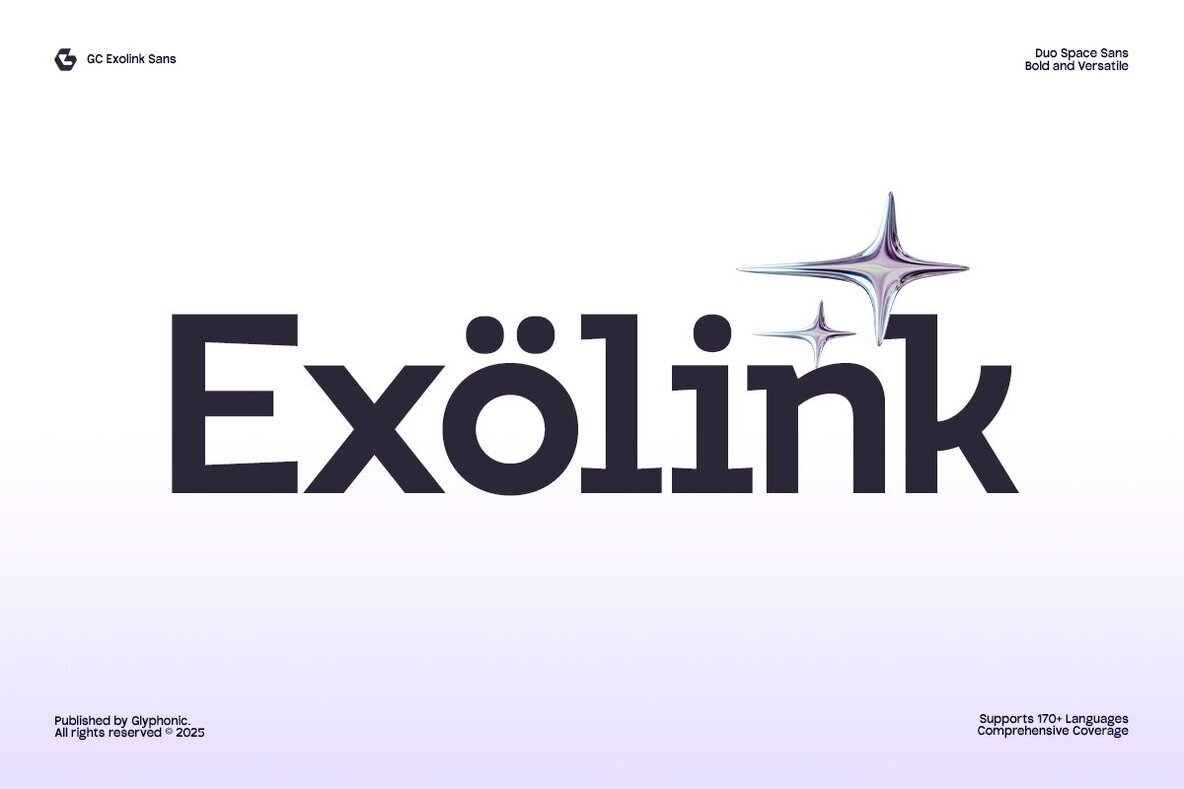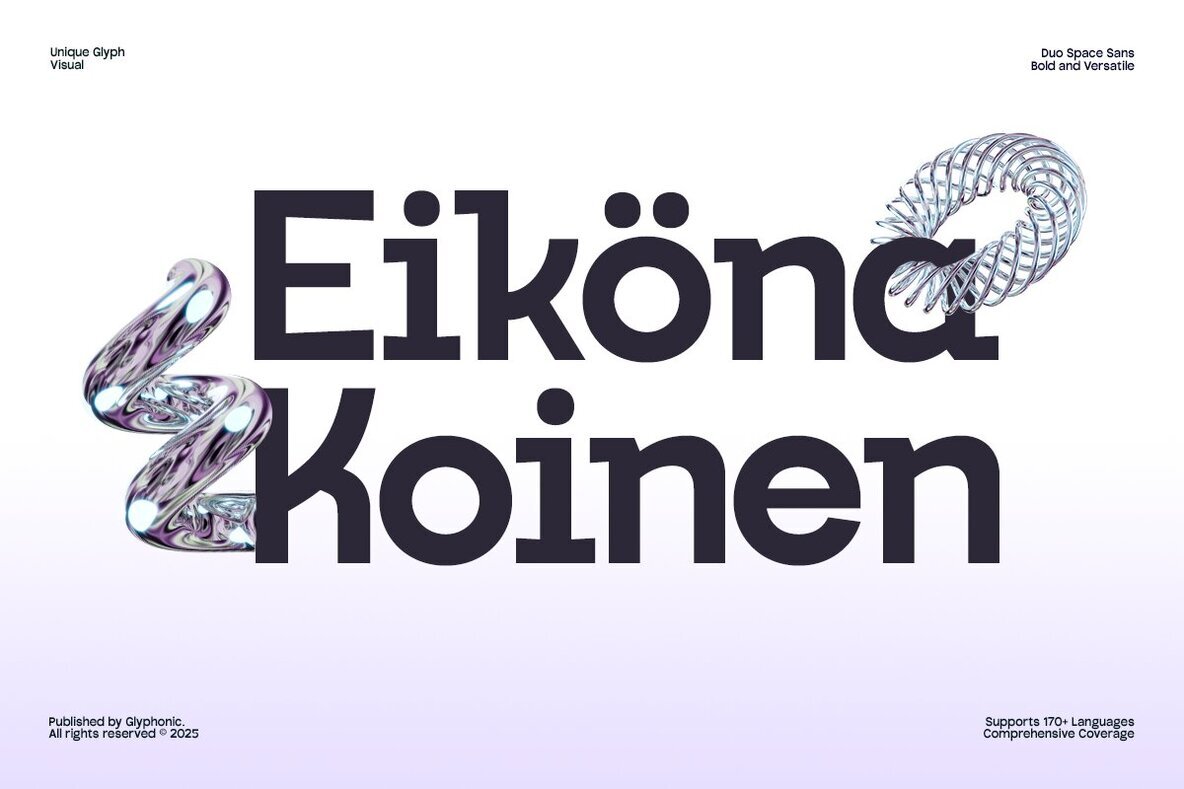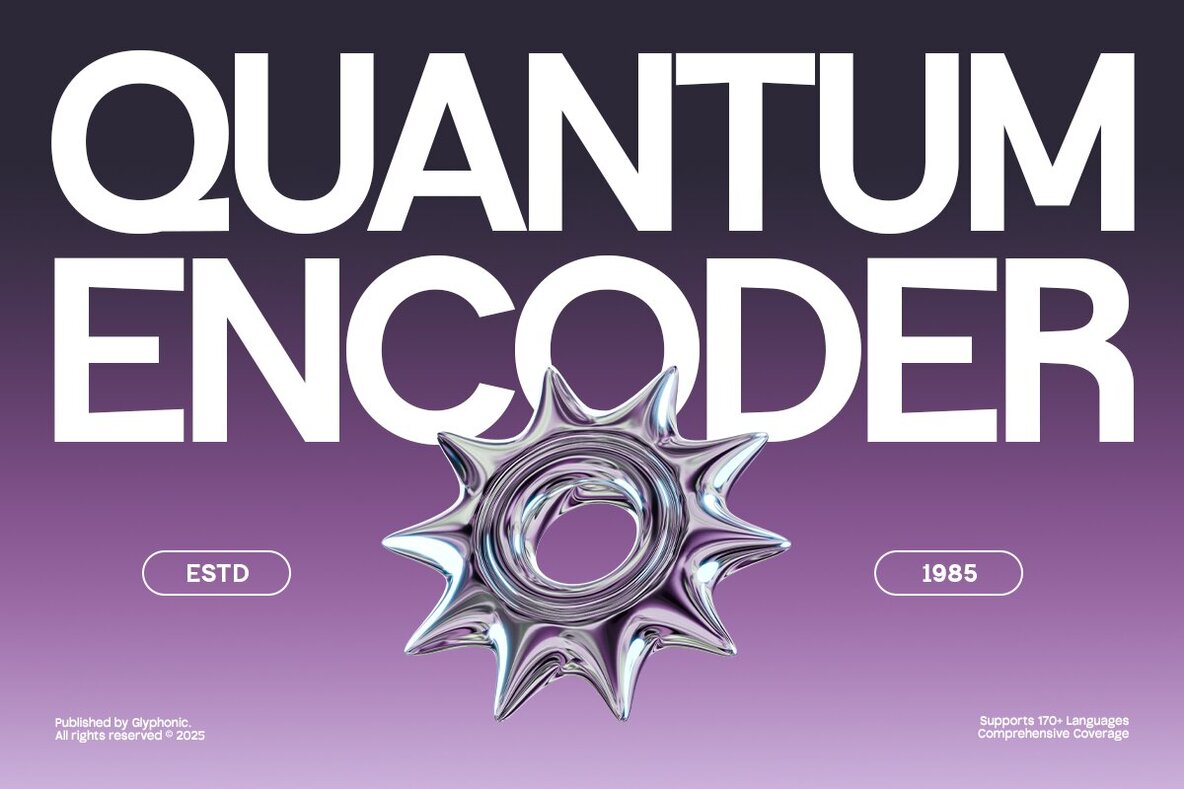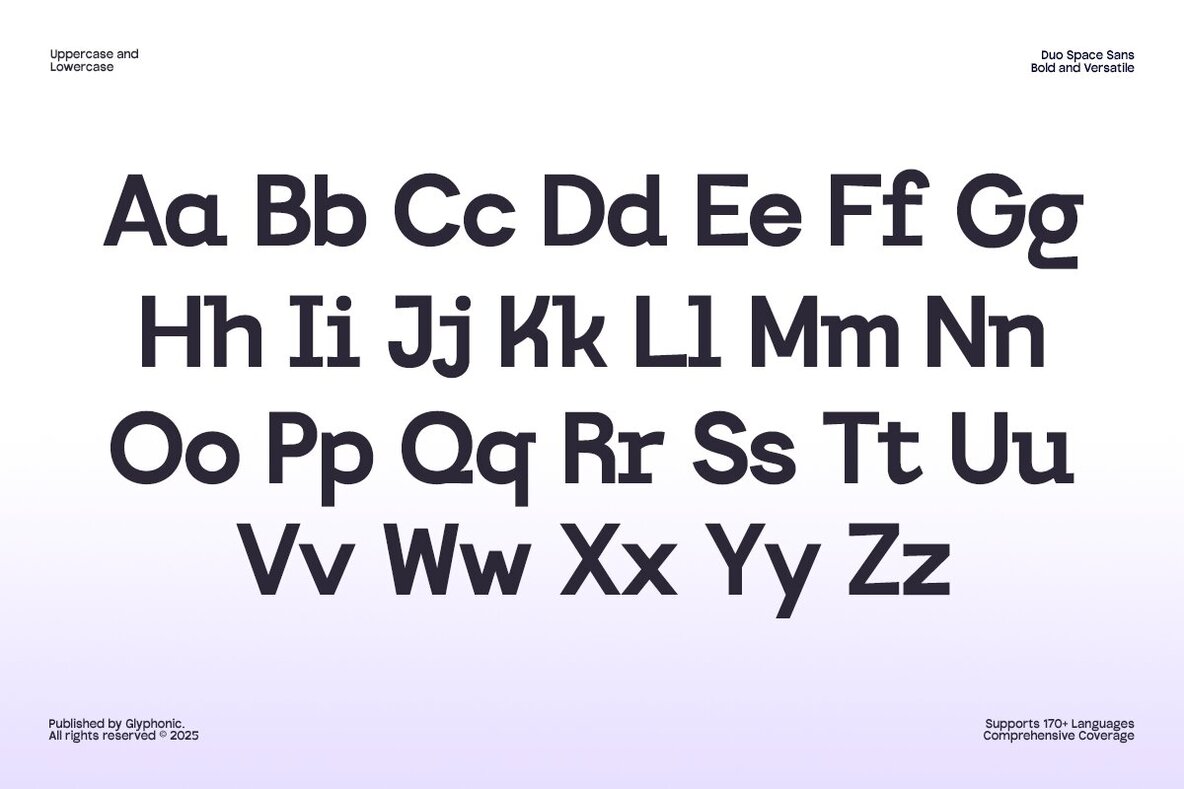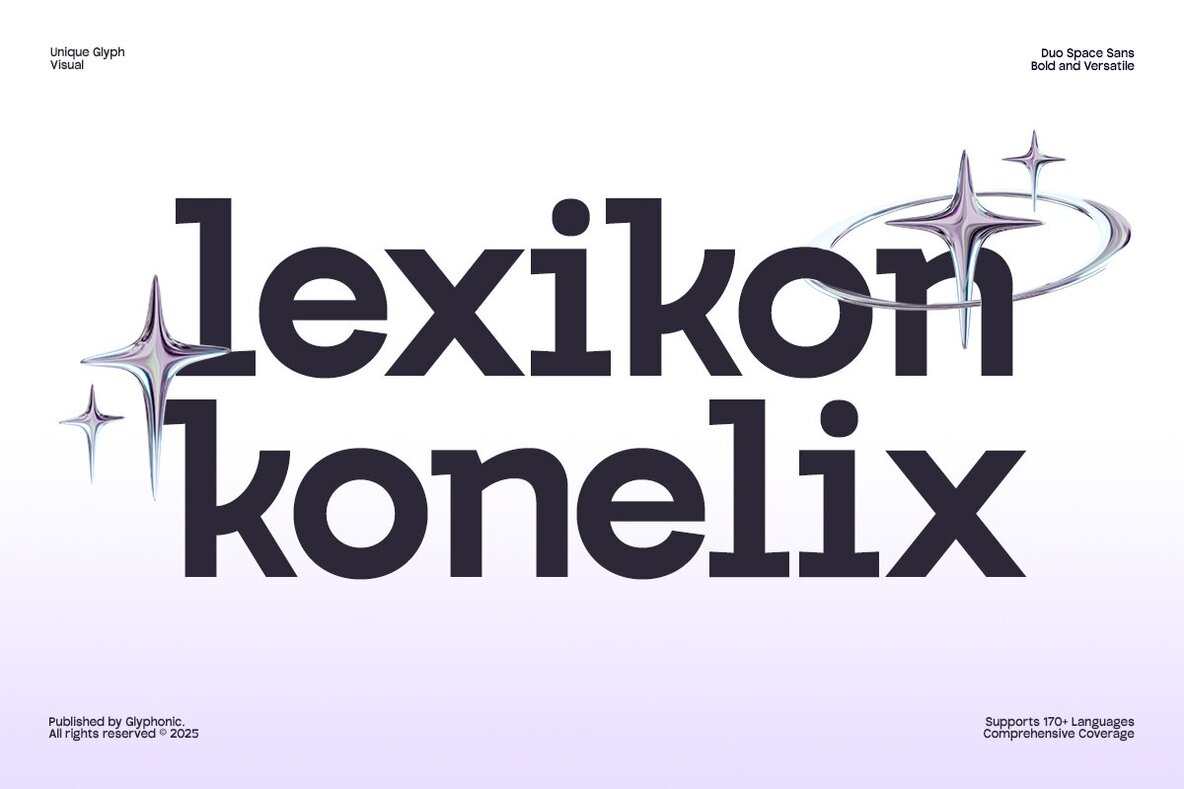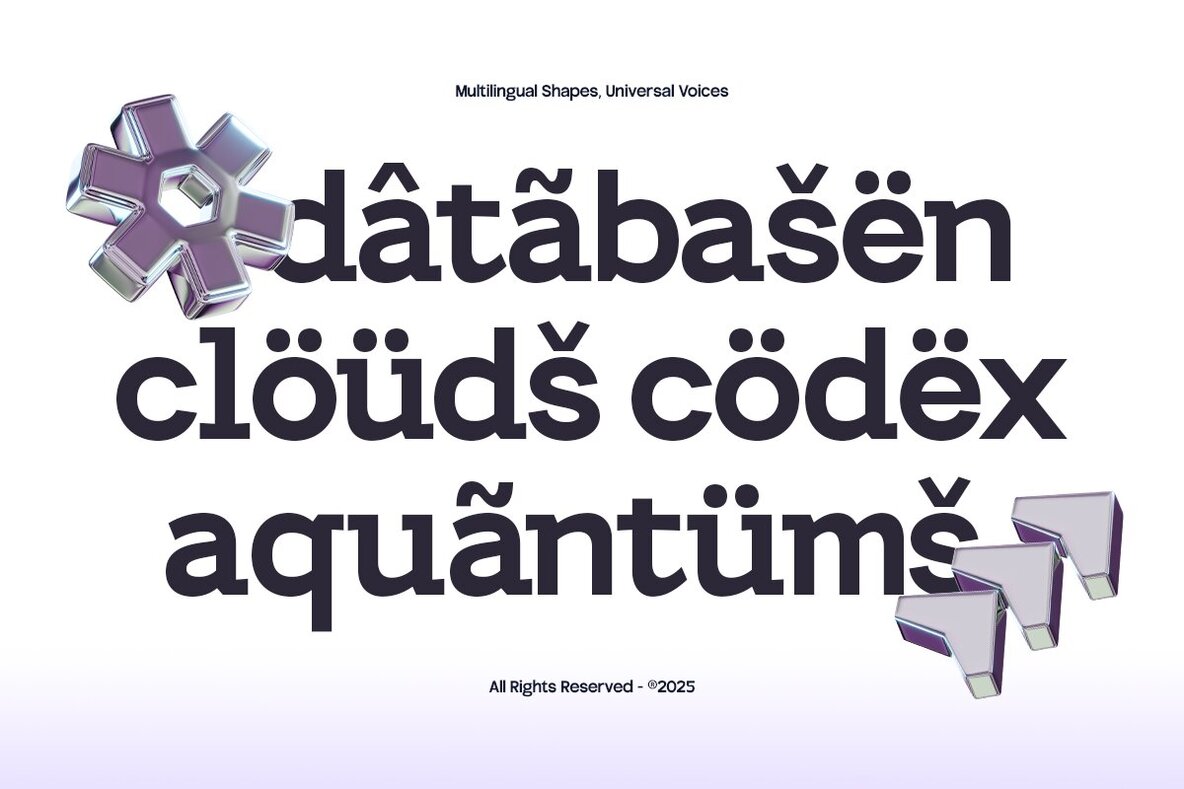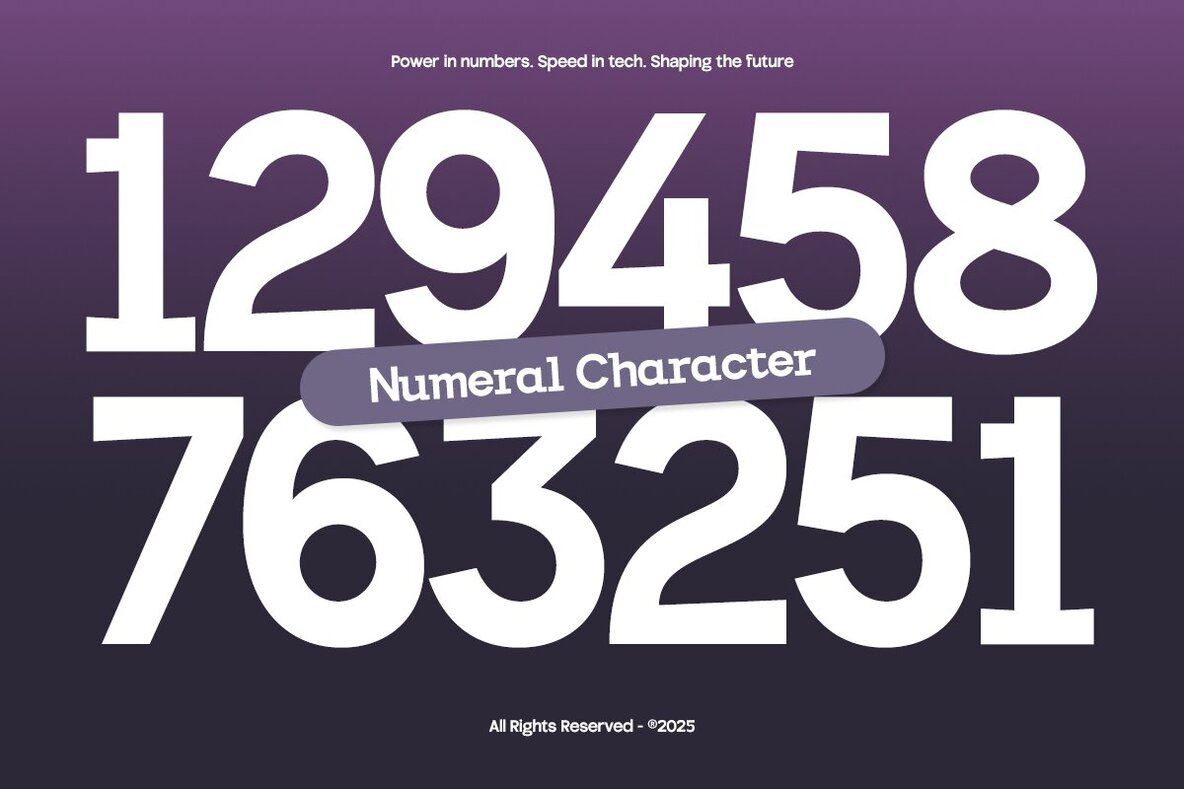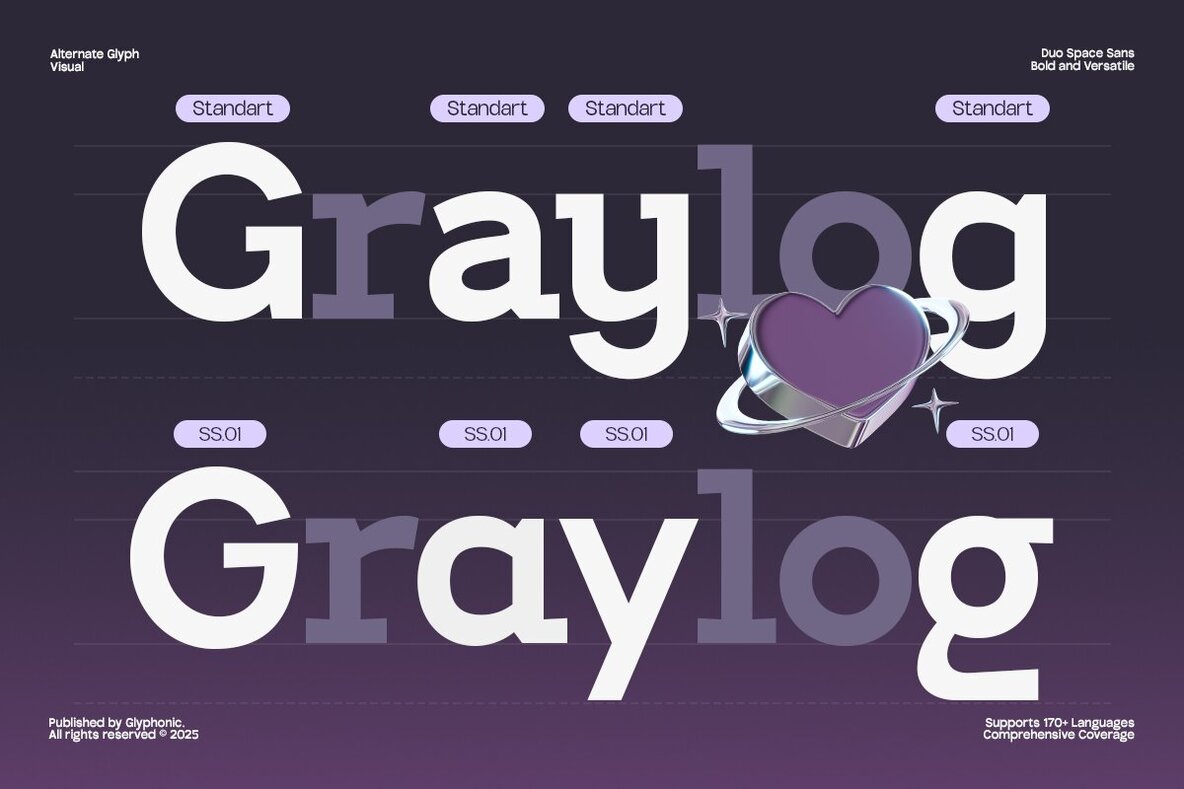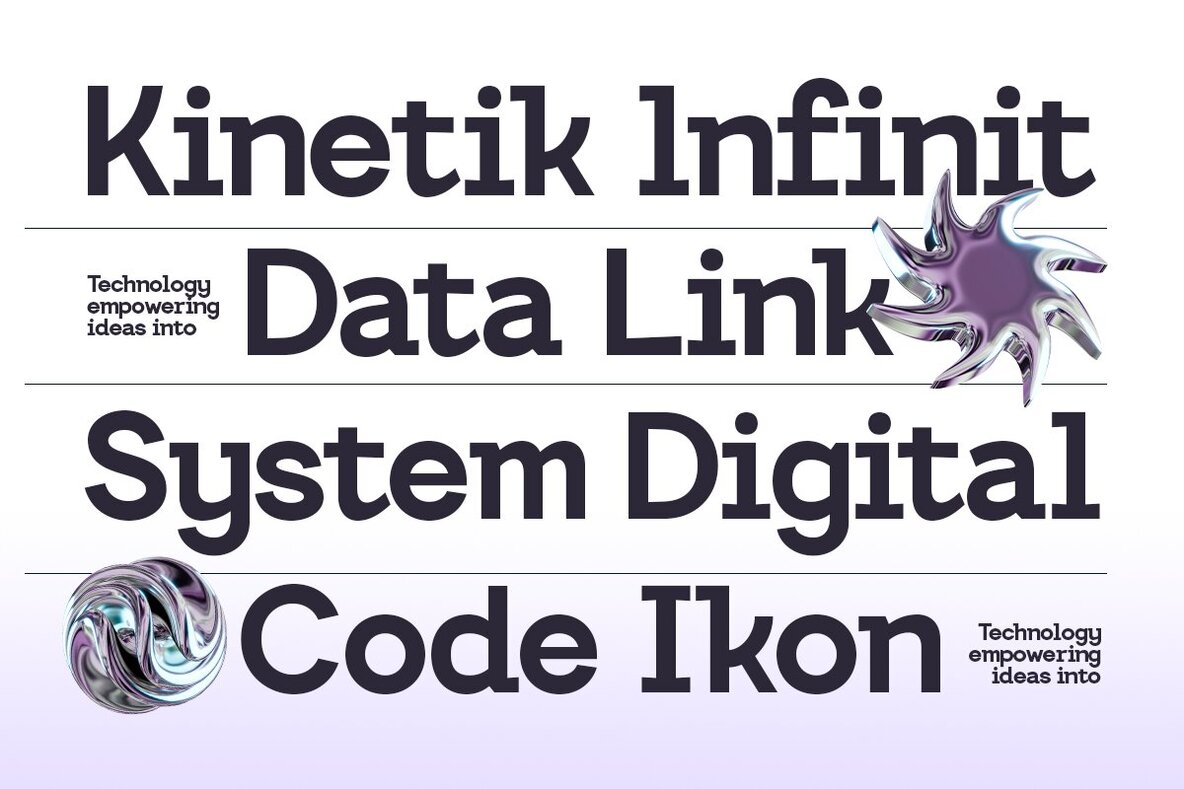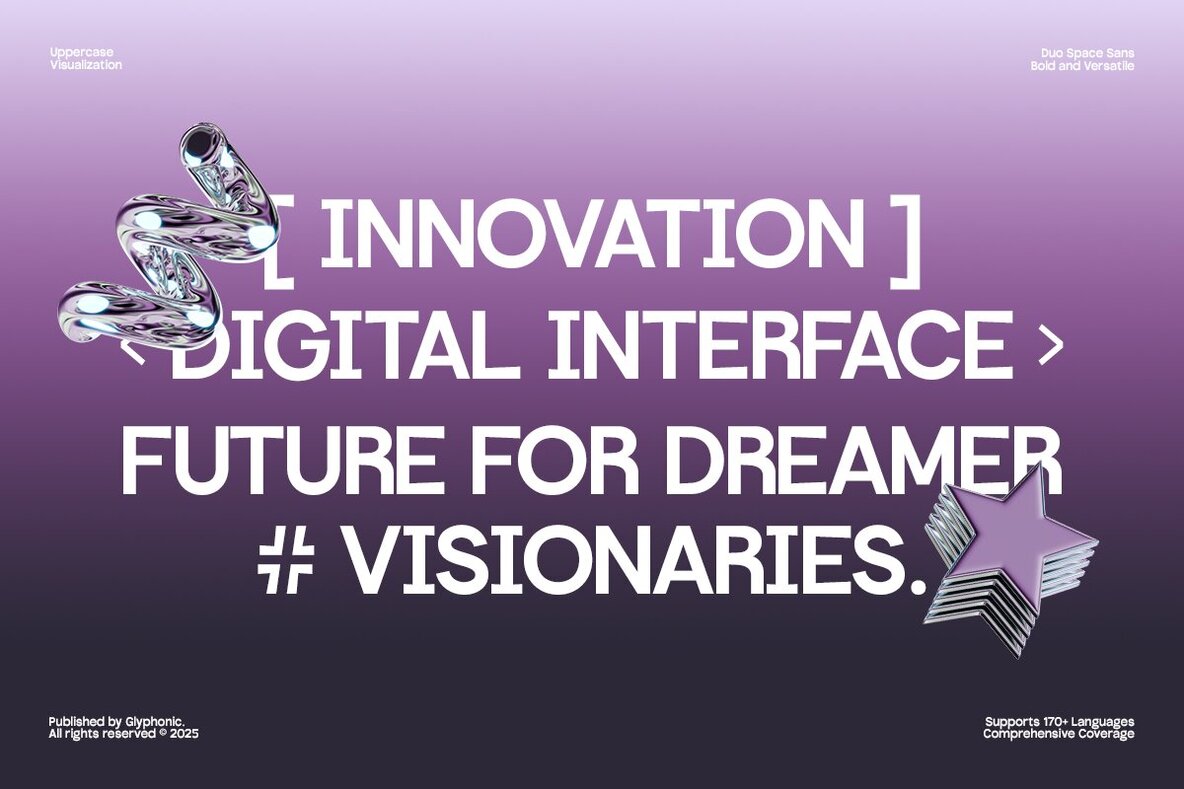
GC Exolink Font
GC Exolink Bold
GC Exolink is a contemporary sans serif typeface that embodies strength and clarity. With clean geometry and assertive strokes, it projects a confident voice that seamlessly adapts across digital and print media. Crafted for balance between bold expression and refined simplicity, it is ideal for branding, editorial layouts, tech-inspired projects, and striking visual identities. Its precise detailing and balanced proportions make GC Exolink both adaptable and distinctive. It is perfect for sleek interfaces, commanding headlines, or minimalistic posters, infusing typography with modernity and timeless impact. Features:GC Exolink: Infinite Boldness